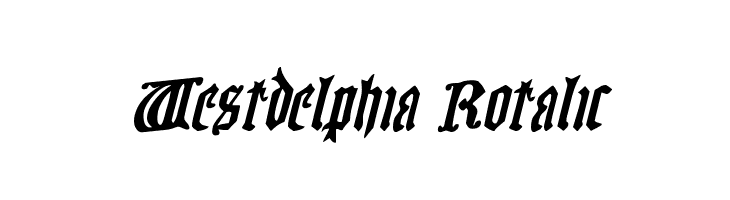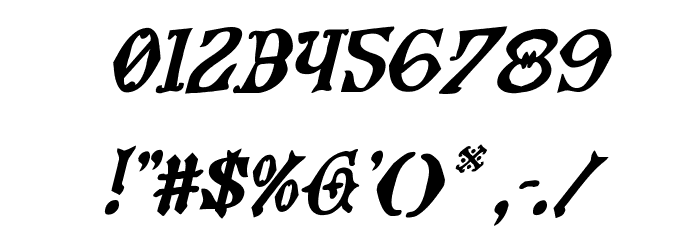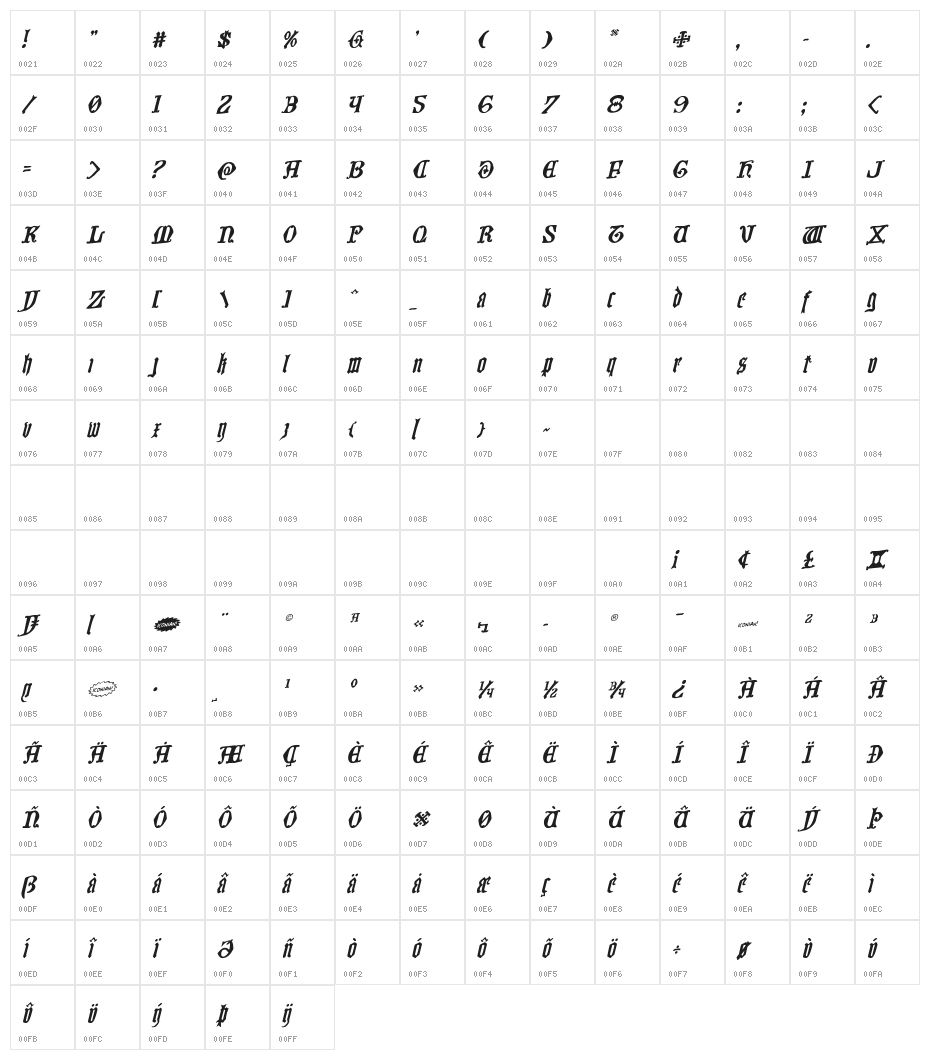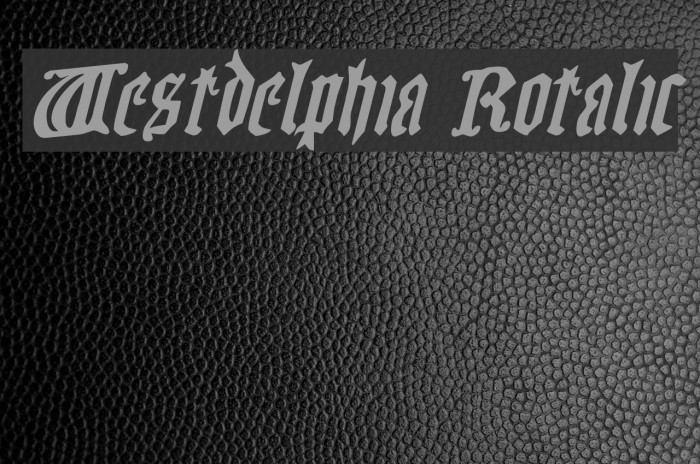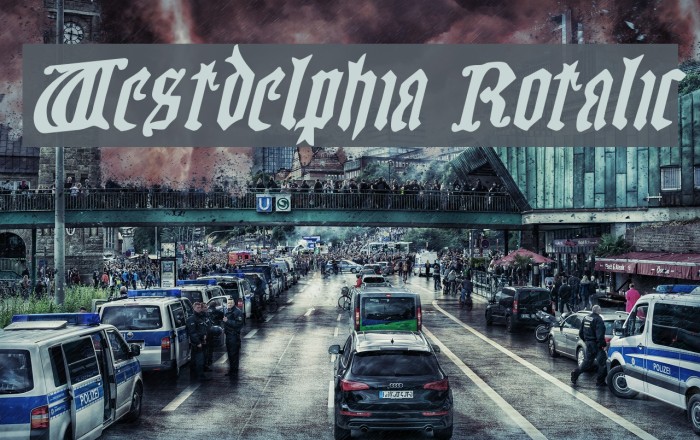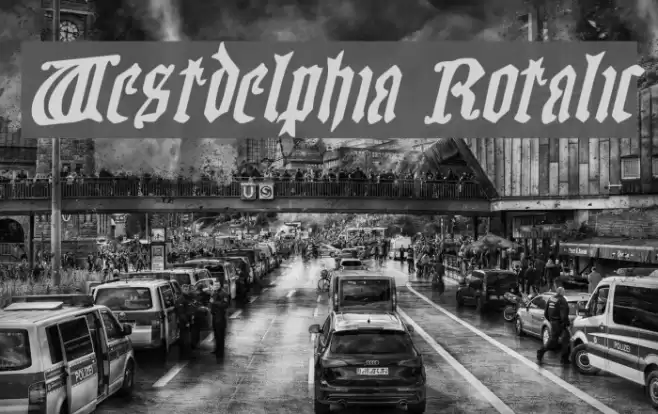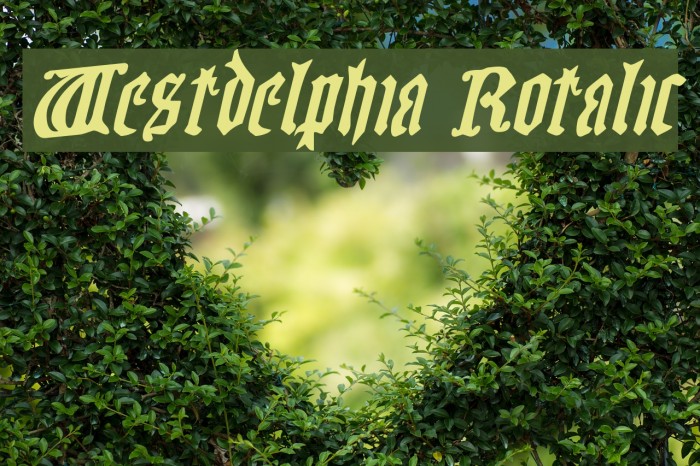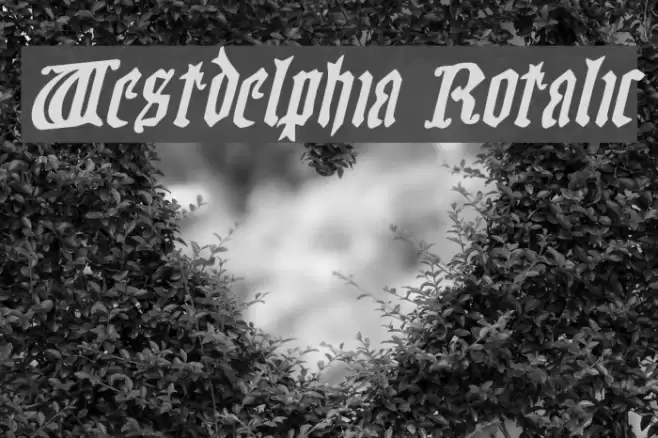
Westdelphia Rotalic Font
Westdelphia Rotalic Description
This font features a bold and dramatic style, reminiscent of traditional blackletter typefaces. The characters are ornate with sharp angles and flourishes, giving it a gothic and medieval appearance. The uppercase letters are particularly elaborate, with intricate curves and pointed edges. The lowercase letters maintain the same decorative style, though slightly more subdued. Numbers and special characters are consistent with the overall theme, providing a cohesive look. This font is designed to capture attention and convey a sense of historical elegance and formality.